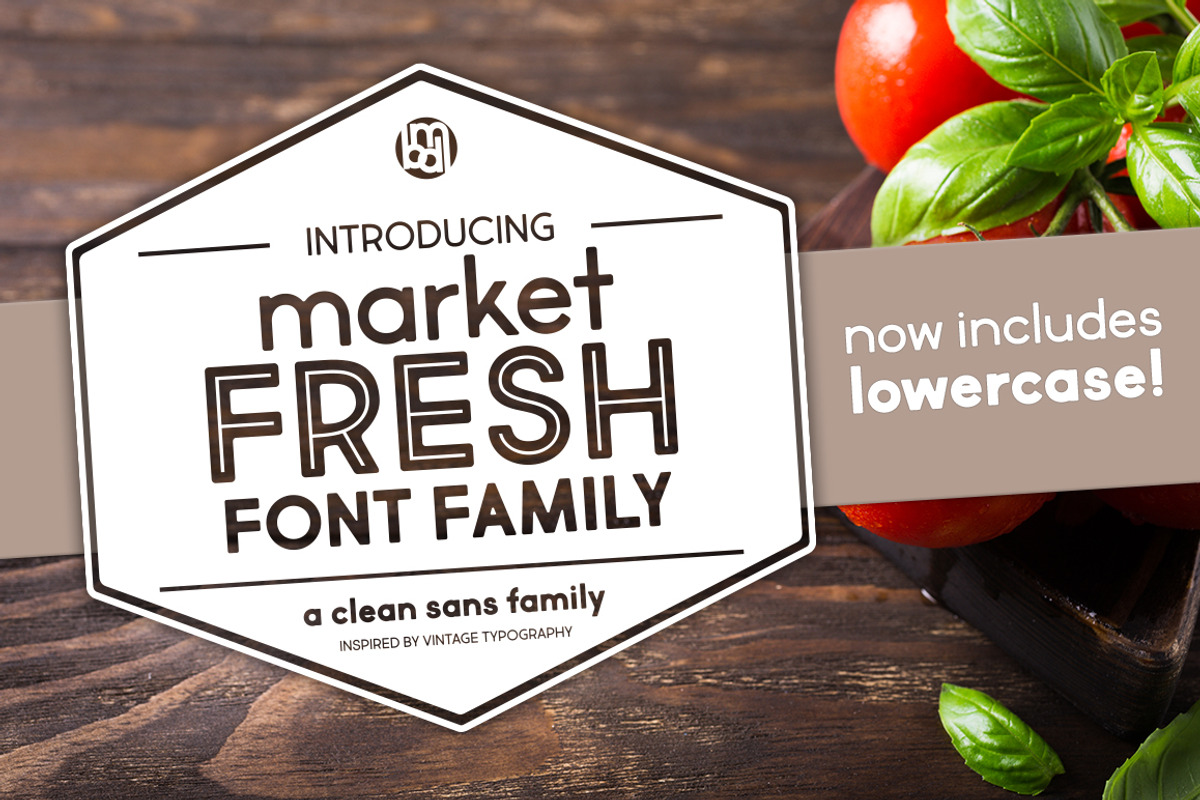
Market Fresh Font Family
Market Fresh Font Family by Brittney Murphy Design is a font selected for branding, posters, packaging, typography.
- Includes over 500+ characters including Latin, Greek, Cyrillic & more.
- Originally designed as all-caps fonts, Market Fresh has been updated and now includes a standard versions with lowercase, in addition to the
Why Market Fresh Font Family is worth a look
Market Fresh Font Family by Brittney Murphy Design fits naturally into Branding, posters, packaging, typography.